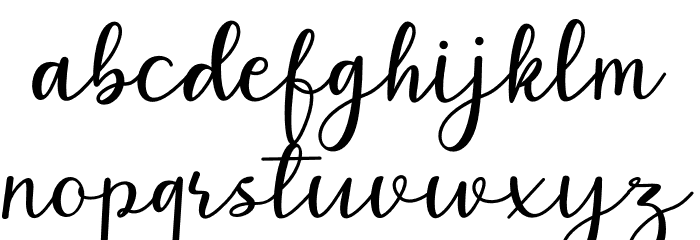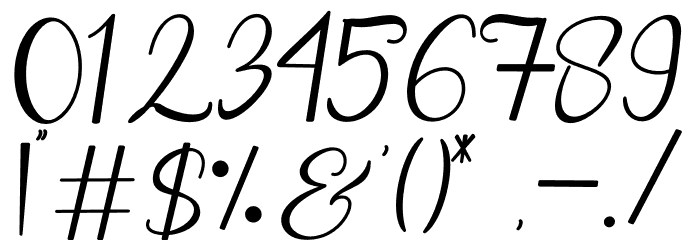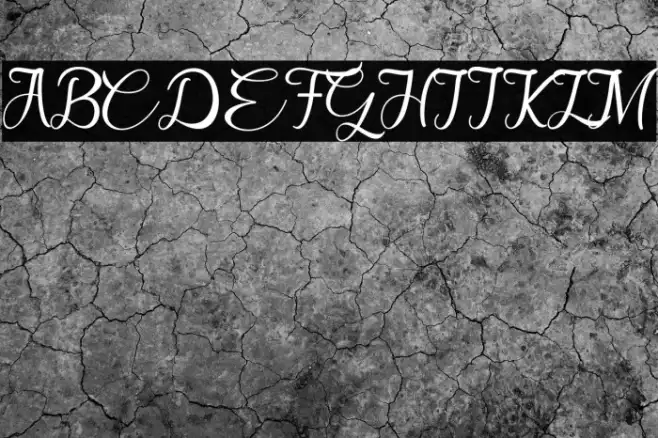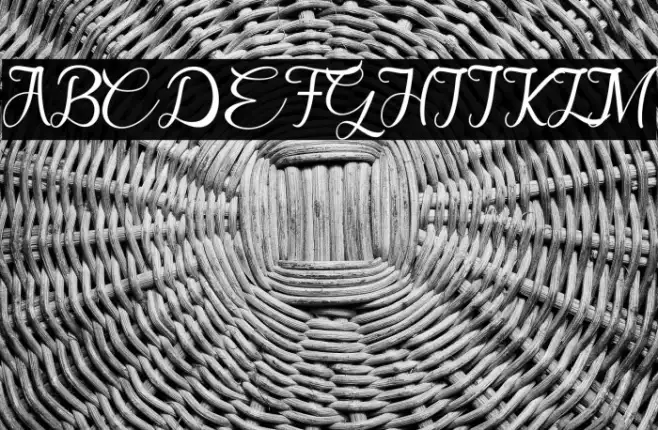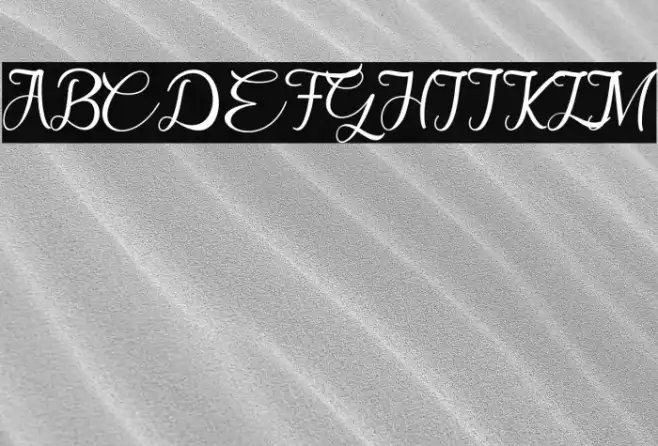
Milk&Honey Font
This font exudes a charming and elegant script style, characterized by its flowing, cursive letterforms that mimic the fluidity of handwriting. The uppercase letters are gracefully connected, while the lowercase letters maintain a smooth, continuous stroke. The numerals and special characters complement the overall aesthetic with their sleek and stylish curves. This font is perfect for adding a personal touch to any design, offering a sense of sophistication and warmth. Its balanced contrast and moderate character spacing ensure readability while maintaining its decorative appeal.
A charming and elegant script font with flowing, cursive letterforms.
- Proposed Projects: Ideal for wedding invitations, greeting cards, branding, and elegant packaging designs.
- Overall Style: Elegant, Decorative
- Use Case: Logos, Invitations, Greeting Cards